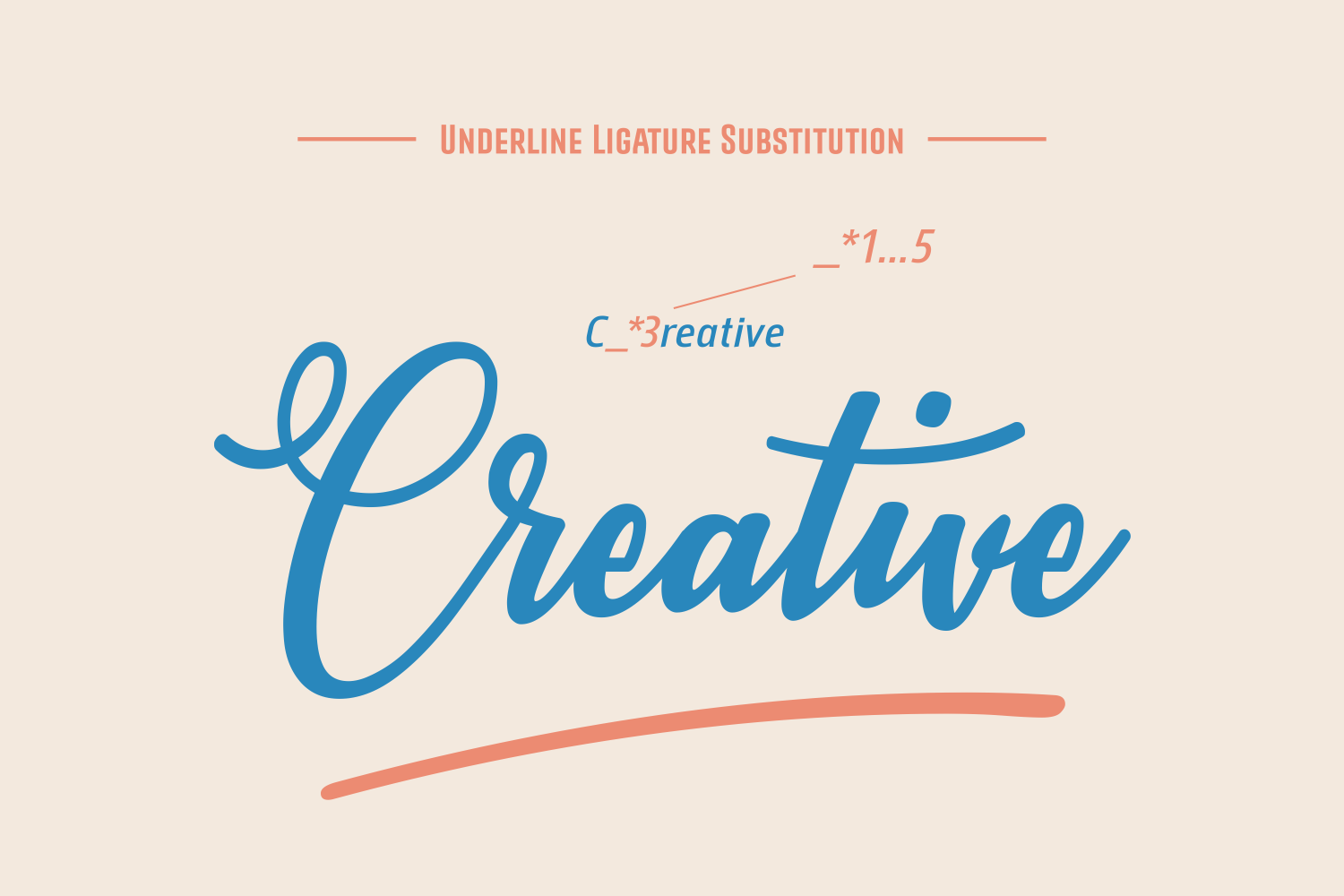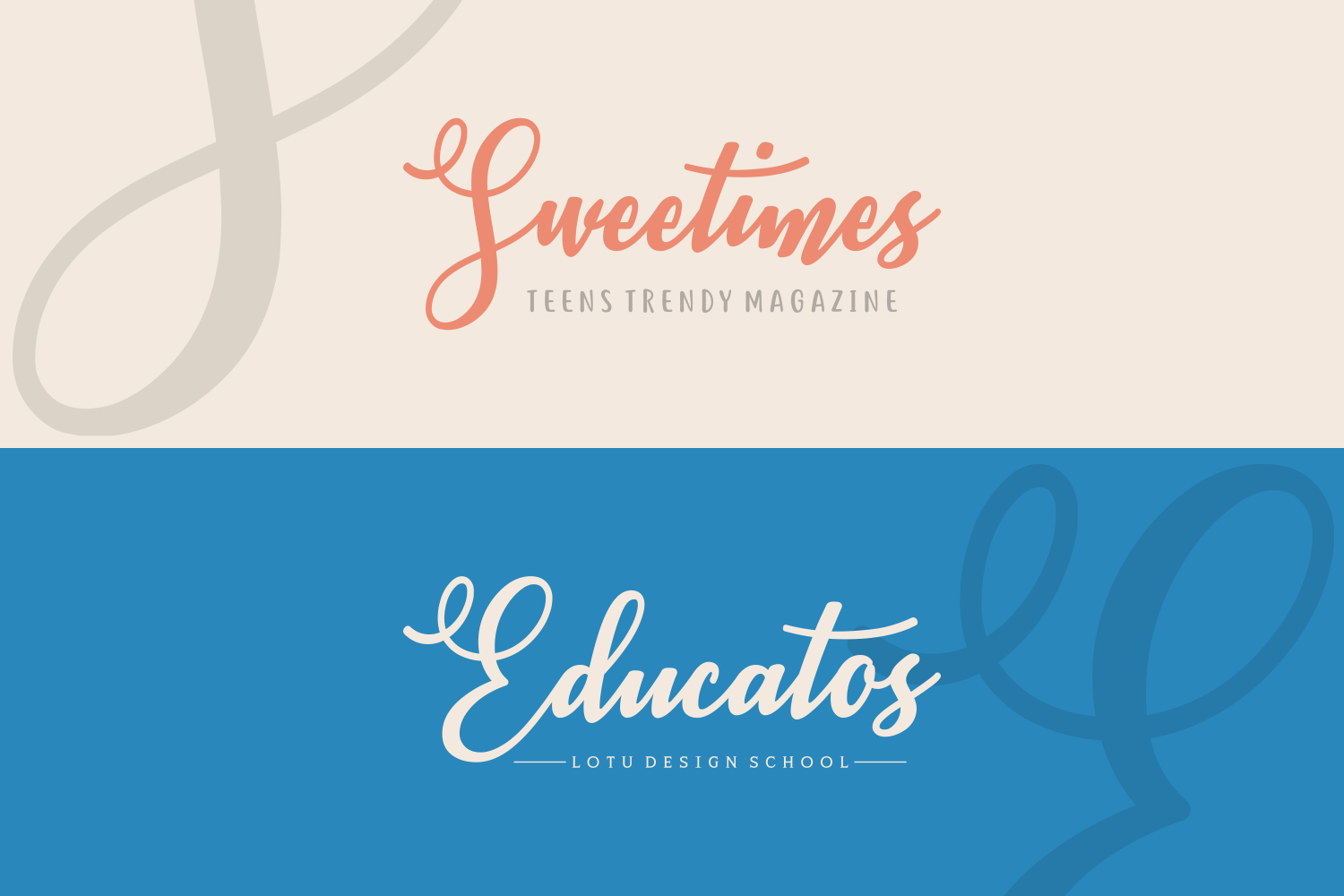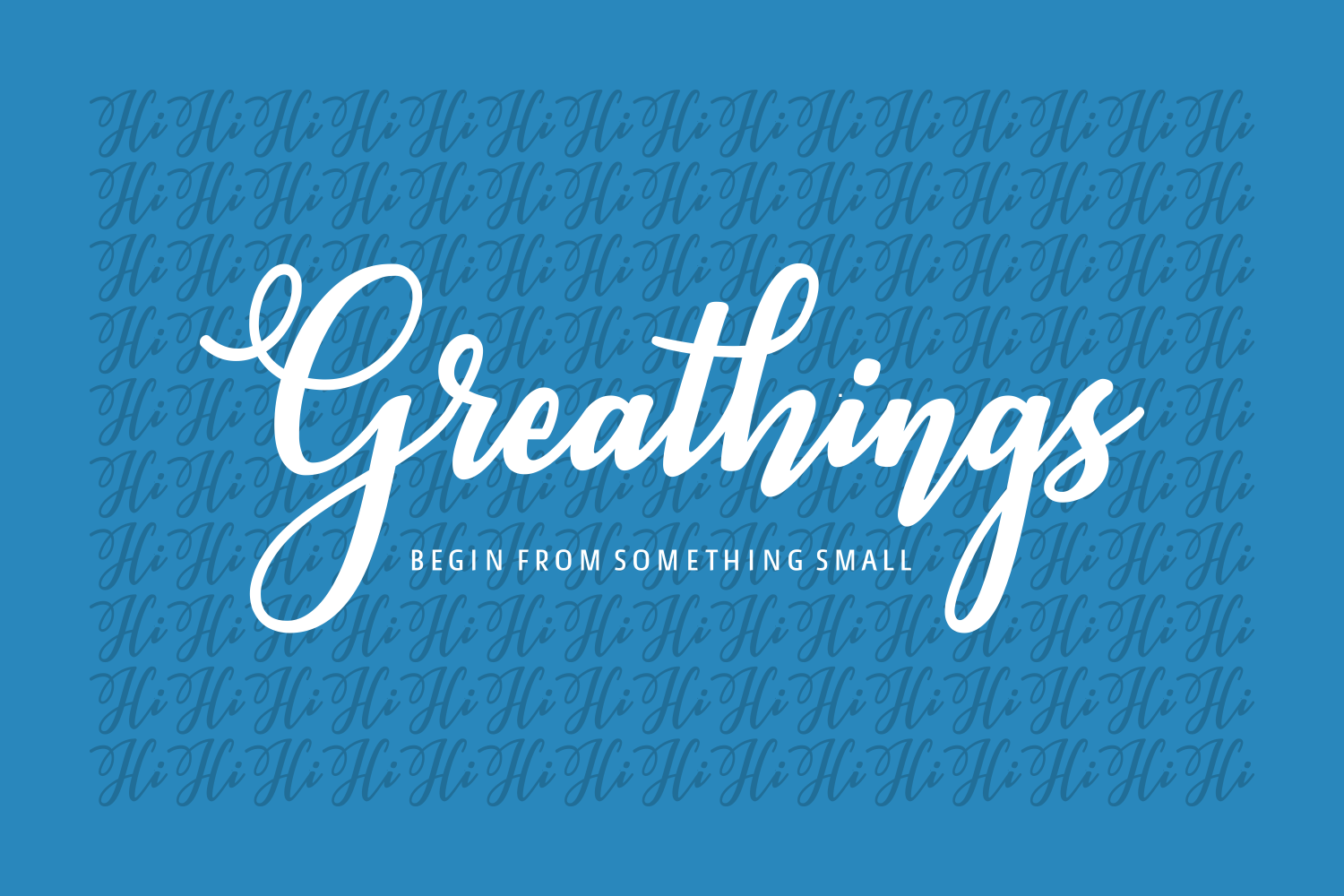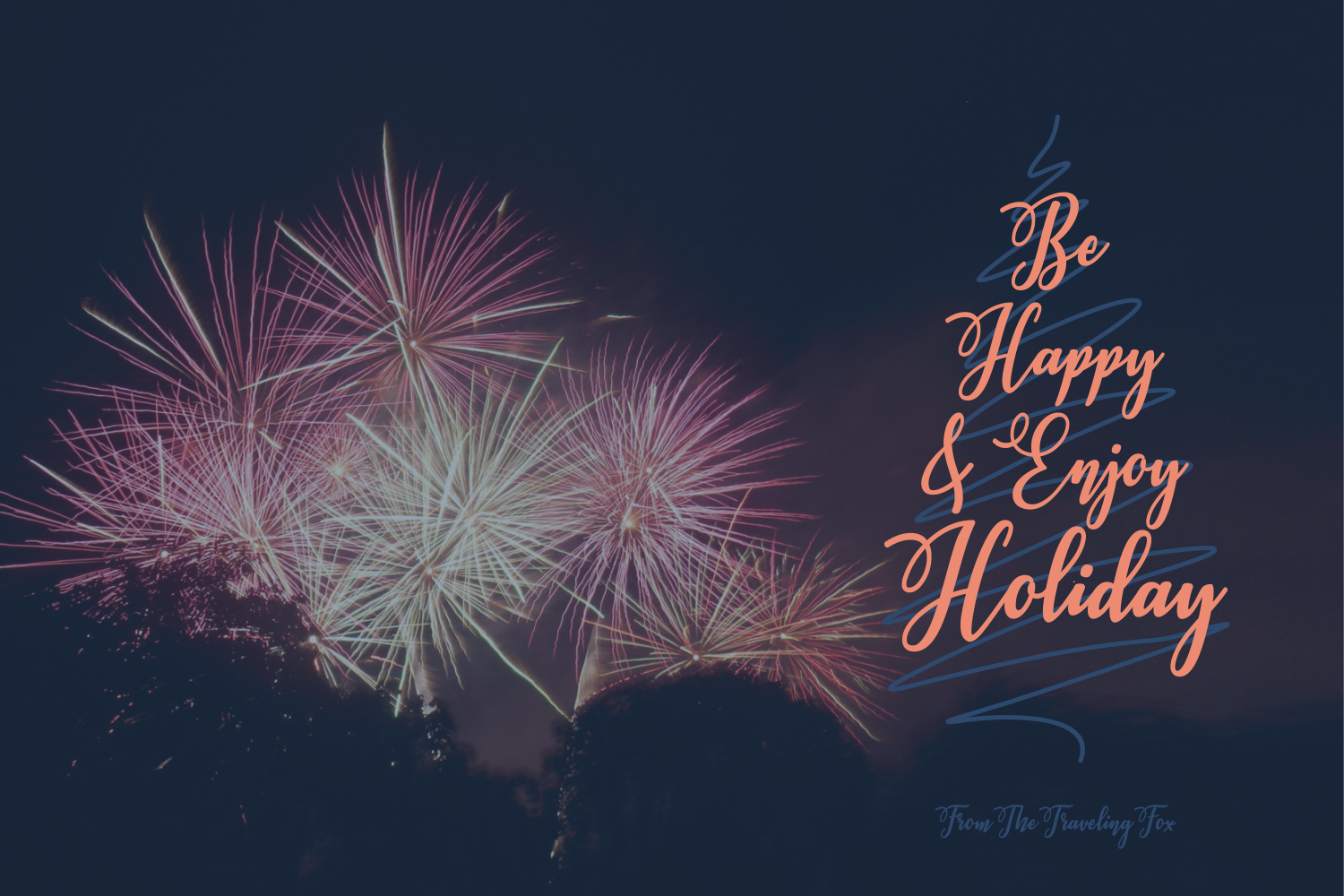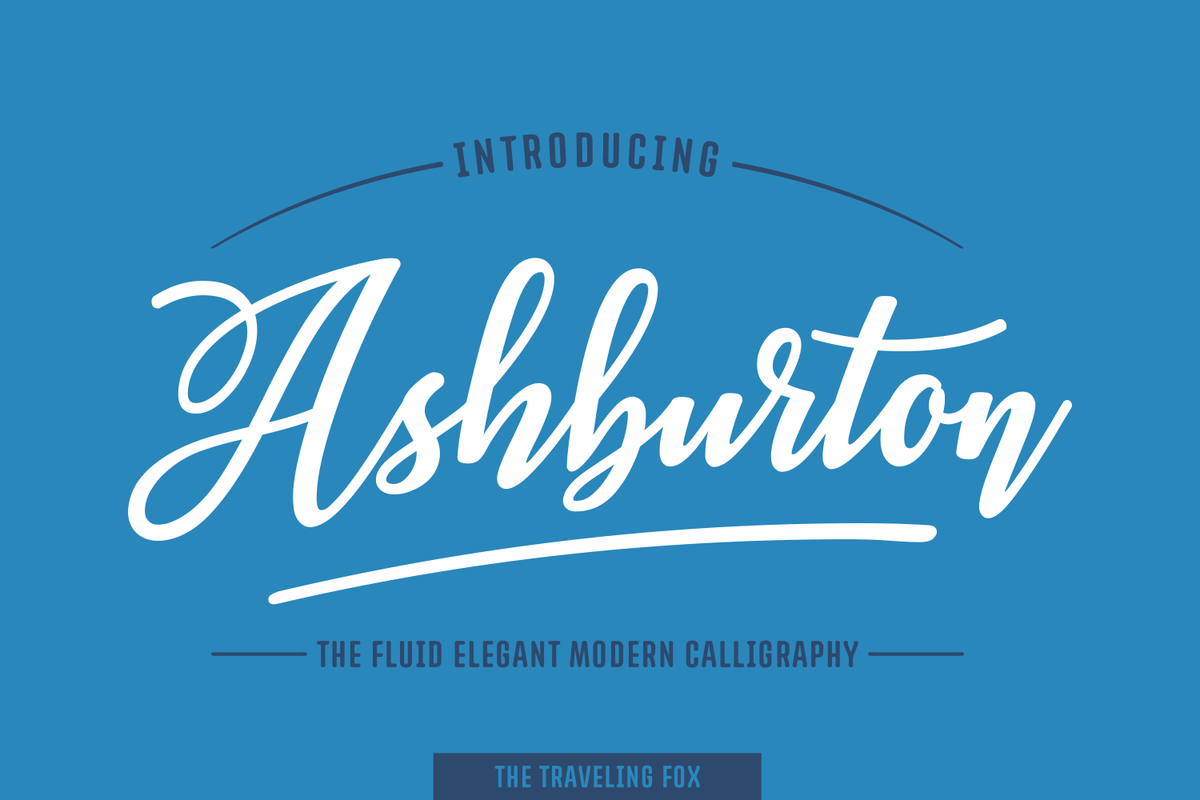
The Perfect Script for Your Next Big Project
Remember the thrill of creating something new, the spark of inspiration that hits you when you least expect it? It’s that moment when you know exactly what font you need to bring your design to life. For many designers, that font is the Ashburton Font – a beautiful and bold script that’s perfect for display projects.
With its sporty, nostalgic, and casual vibe, the Ashburton Font is a versatile addition to any design collection. Whether you’re working on a logo, a poster, or a social media campaign, this font is sure to make a statement. Its diverse range of uses makes it a valuable asset for designers looking to add some personality to their projects.
So why settle for a generic font when you can add the Ashburton Font to your collection today? With its unique style and endless possibilities, this font is sure to become a favorite among designers and creatives alike.
- Unique Characteristics: Elegant and sophisticated design, with refined details and subtle texture, making it suitable for premium and luxury branding
Ashburton Font Review
I recently had the chance to work with the Ashburton font, and overall, I have mixed feelings about it.
- The Ashburton font has a unique and elegant design that makes it perfect for use in high-end branding and advertising projects.
- The font is highly legible, even at smaller font sizes, which makes it a great choice for body text in publications and websites.
- The font family is extensive, offering a range of weights and styles that can be used to create a consistent visual identity.
- The Ashburton font can come across as overly formal and stuffy, which may not be suitable for projects that require a more casual tone.
- The font’s elegance can sometimes make it feel too fancy or over-the-top, which can be distracting or overwhelming.
- The font may not be the best choice for projects that require a lot of emphasis on readability, as its ornate design can make it difficult to read at a glance.
Overall, the Ashburton font is a solid choice for projects that require a touch of elegance and sophistication. However, it’s not the best choice for every project, and designers should carefully consider the tone and style they’re trying to achieve before using it.
Tips for Getting the Most Out of Ashburton Font
Use Ashburton font for formal and professional designs, such as business cards, resumes, and letterheads.
Pair Ashburton font with bold and modern fonts for a striking contrast.
Experiment with different font sizes and styles to create visual hierarchy and emphasis.
Ashburton font is ideal for:
- Formal business designs
- Professional resumes and CVs
- Letterheads and business cards